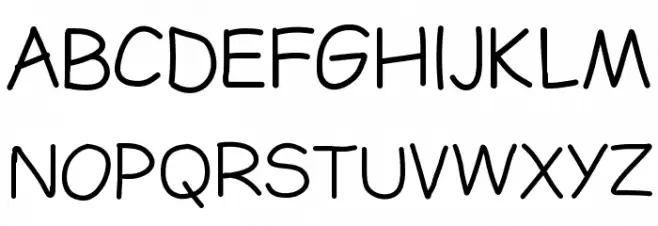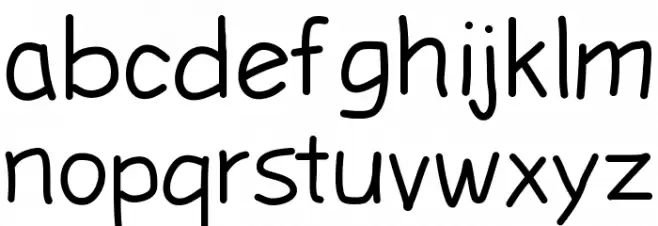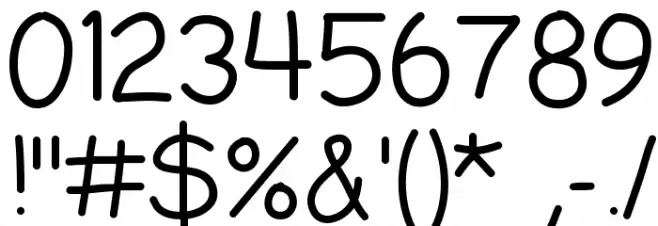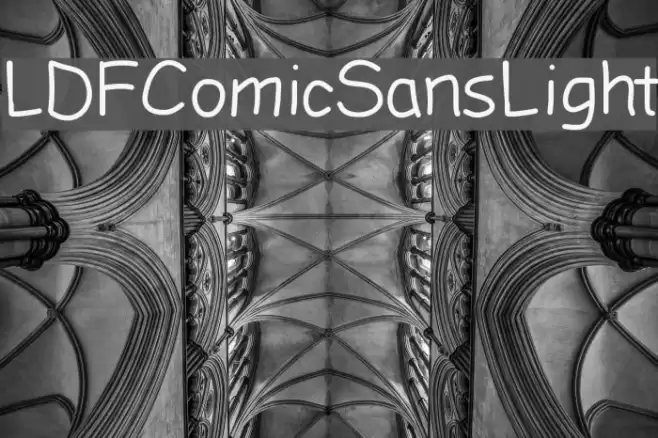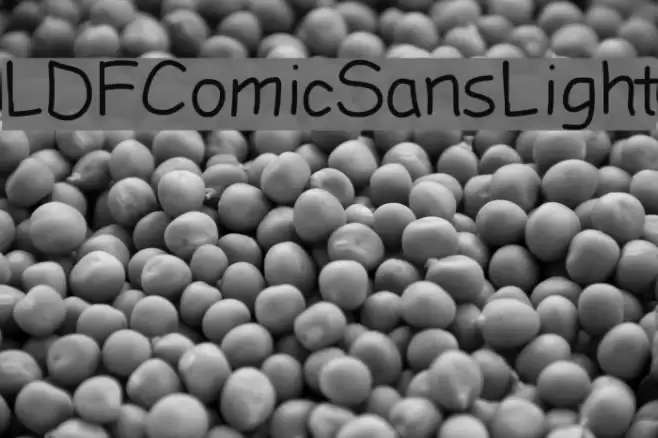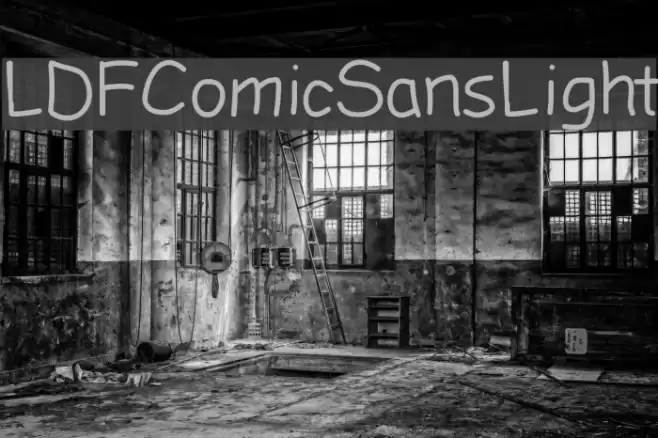
LDFComicSansLight
This font features a playful and informal style, characterized by its rounded and slightly irregular letterforms. The strokes are consistent and smooth, giving it a friendly and approachable appearance. The letters are evenly spaced, providing a clean and readable look. Its casual nature makes it suitable for informal documents, children's books, or any design that requires a touch of whimsy. The font maintains a uniform weight throughout, ensuring clarity and legibility across different sizes.
A playful, informal font with rounded, smooth letterforms.
- Proposed Projects: Ideal for children's books, informal documents, greeting cards, and playful branding.
- Weight: Light
- Overall Style: Casual
- Use Case: Informal documents, children's materials, playful designs.